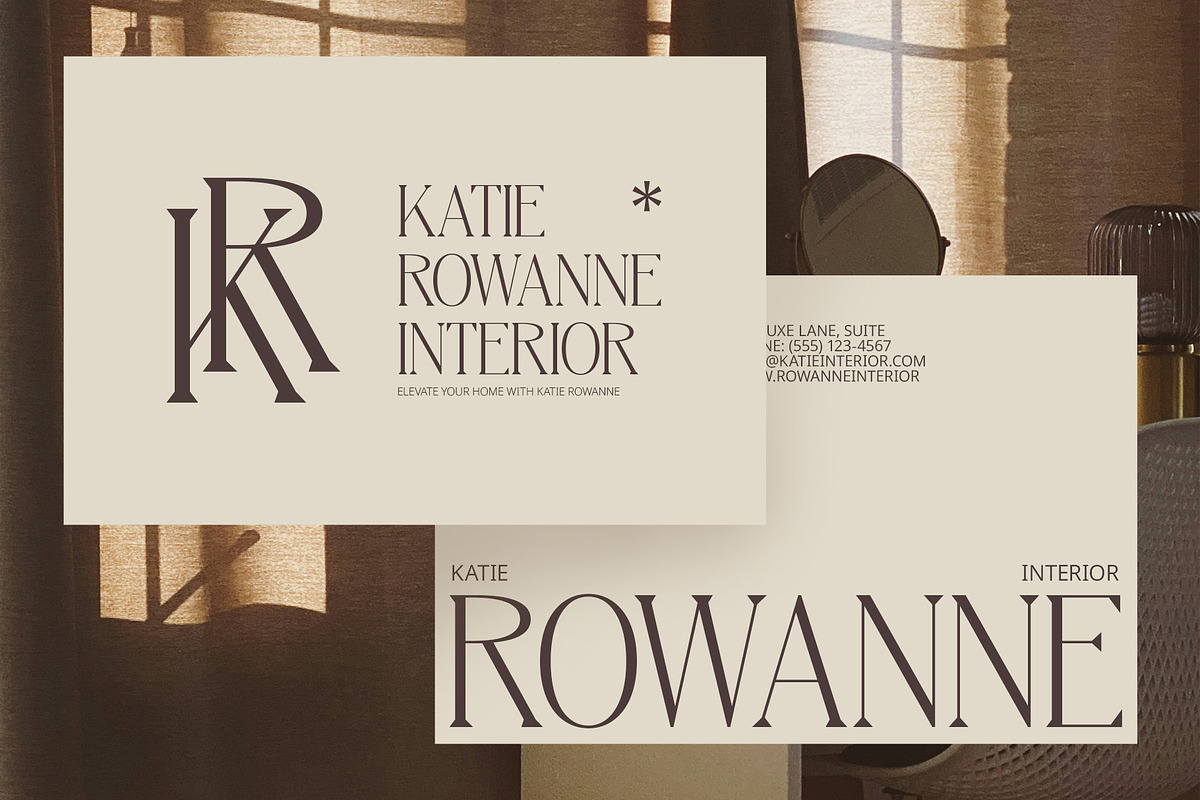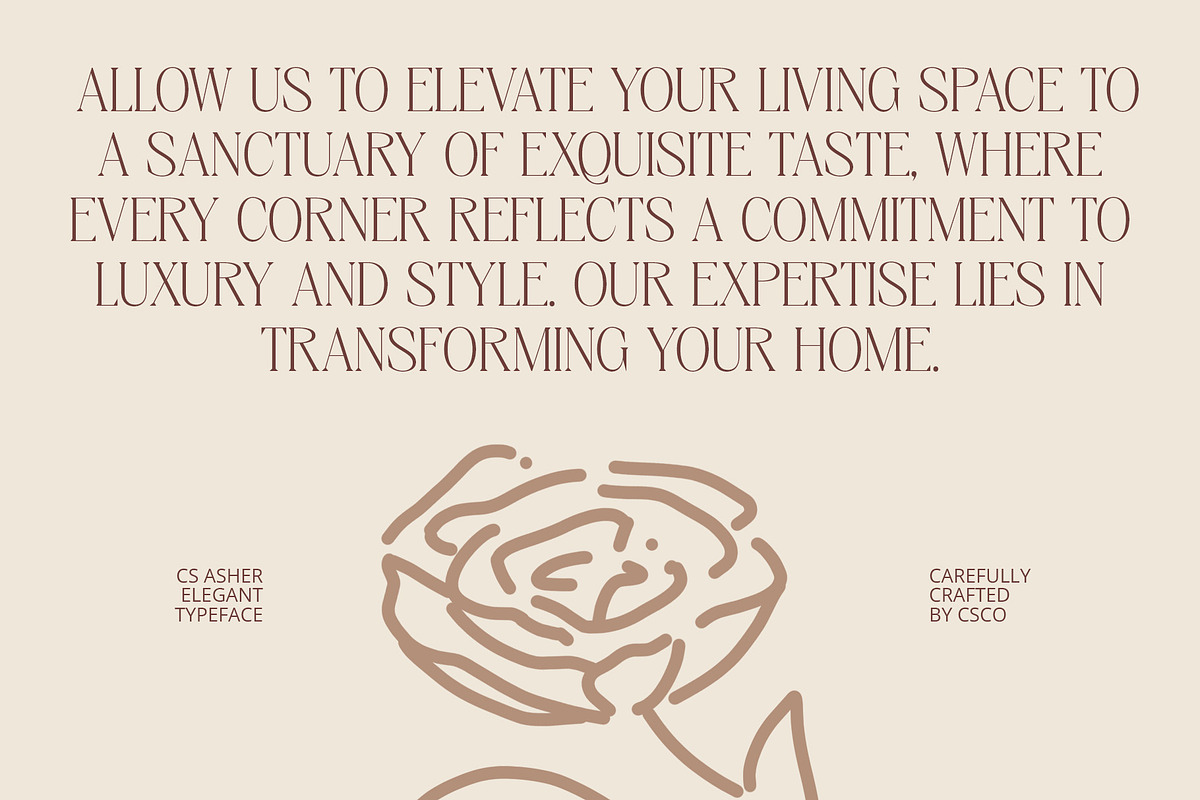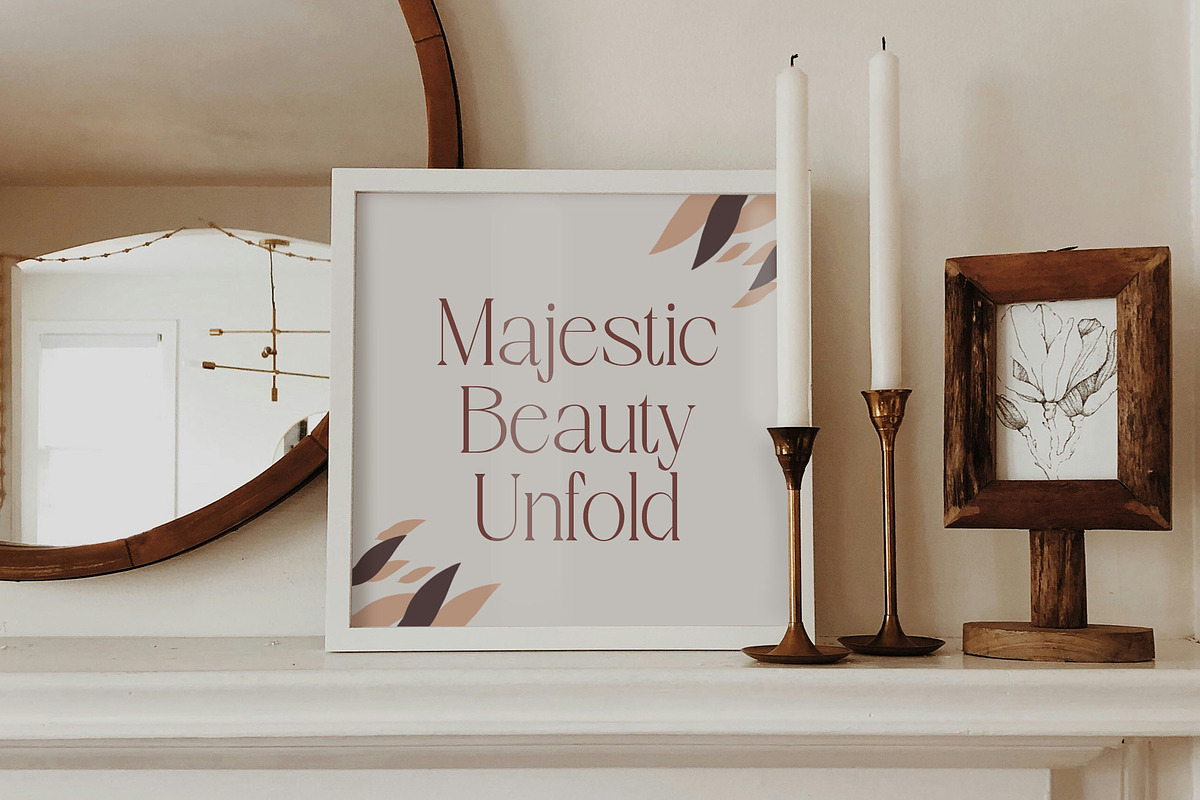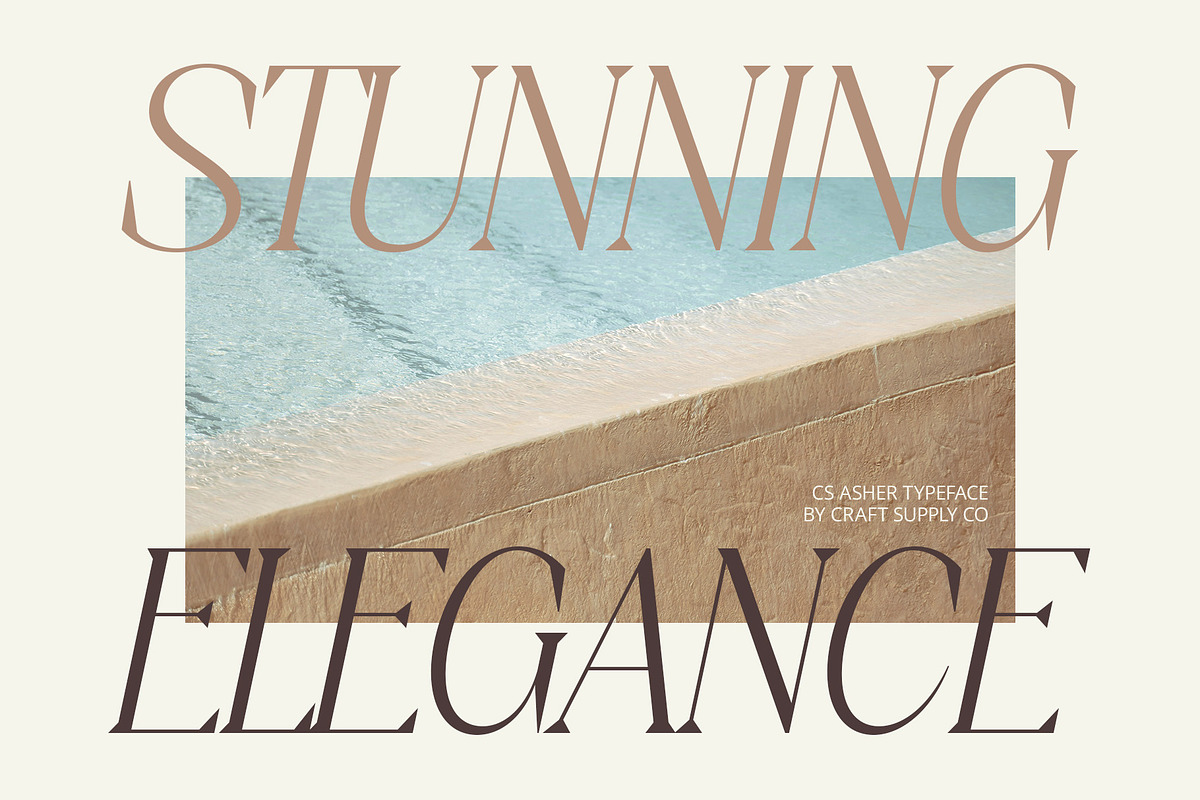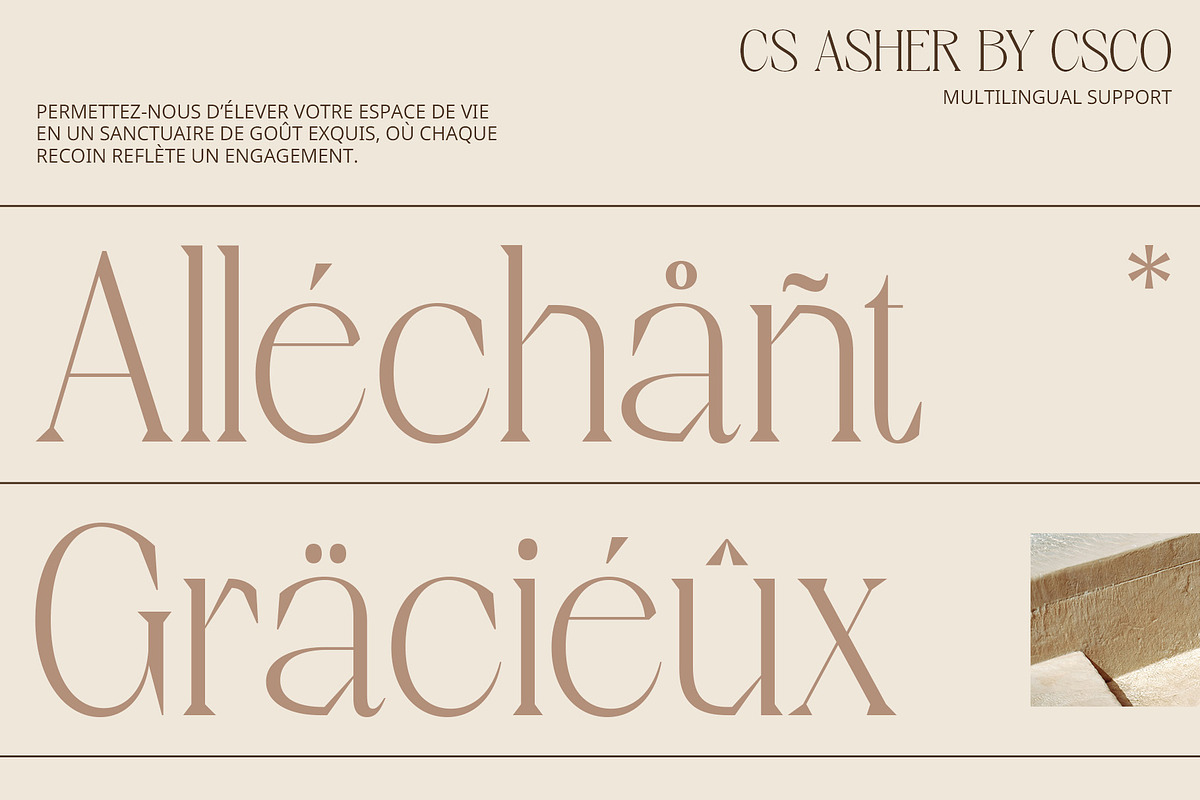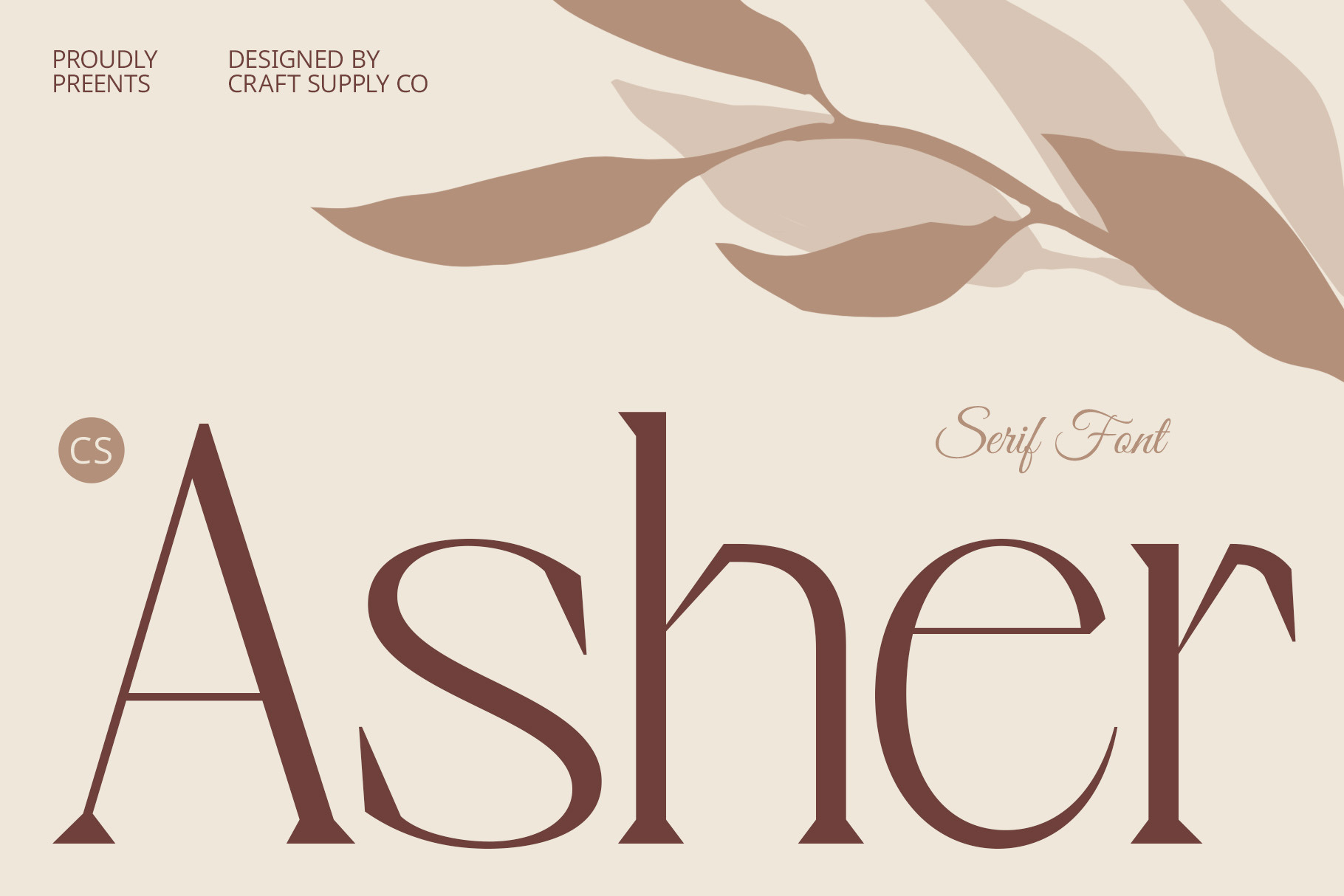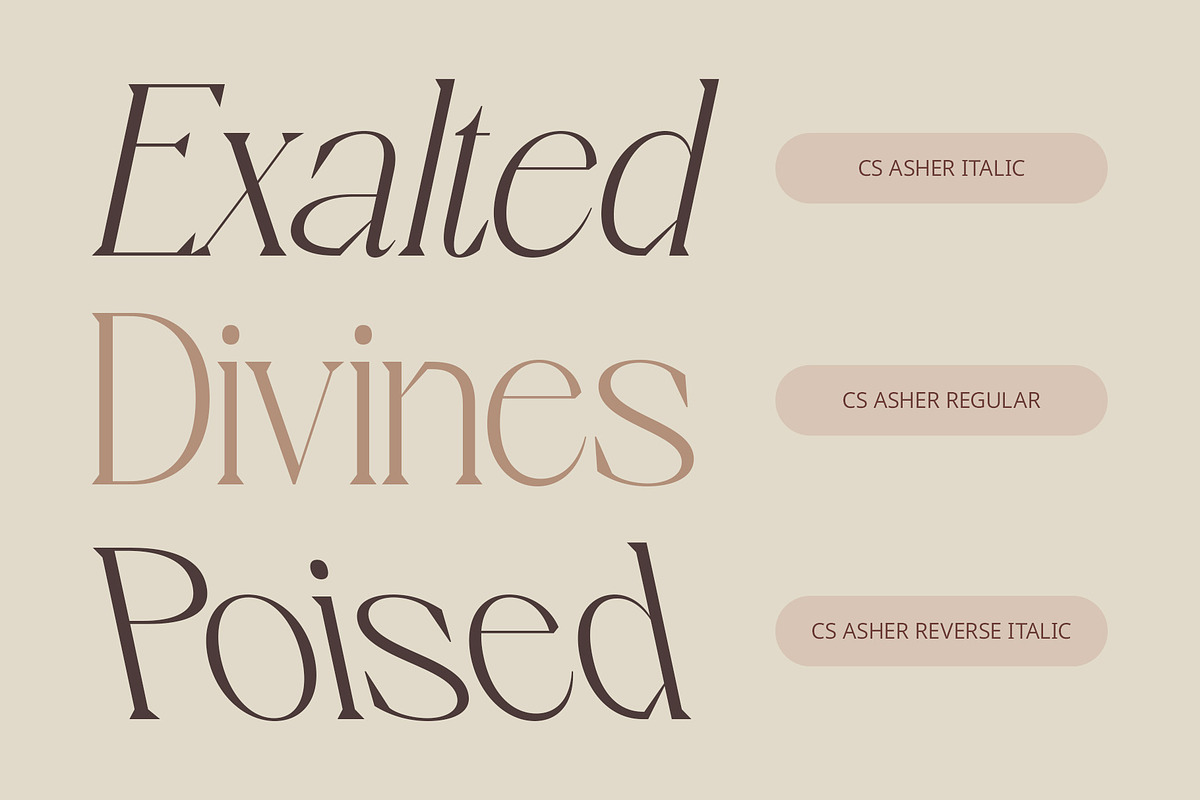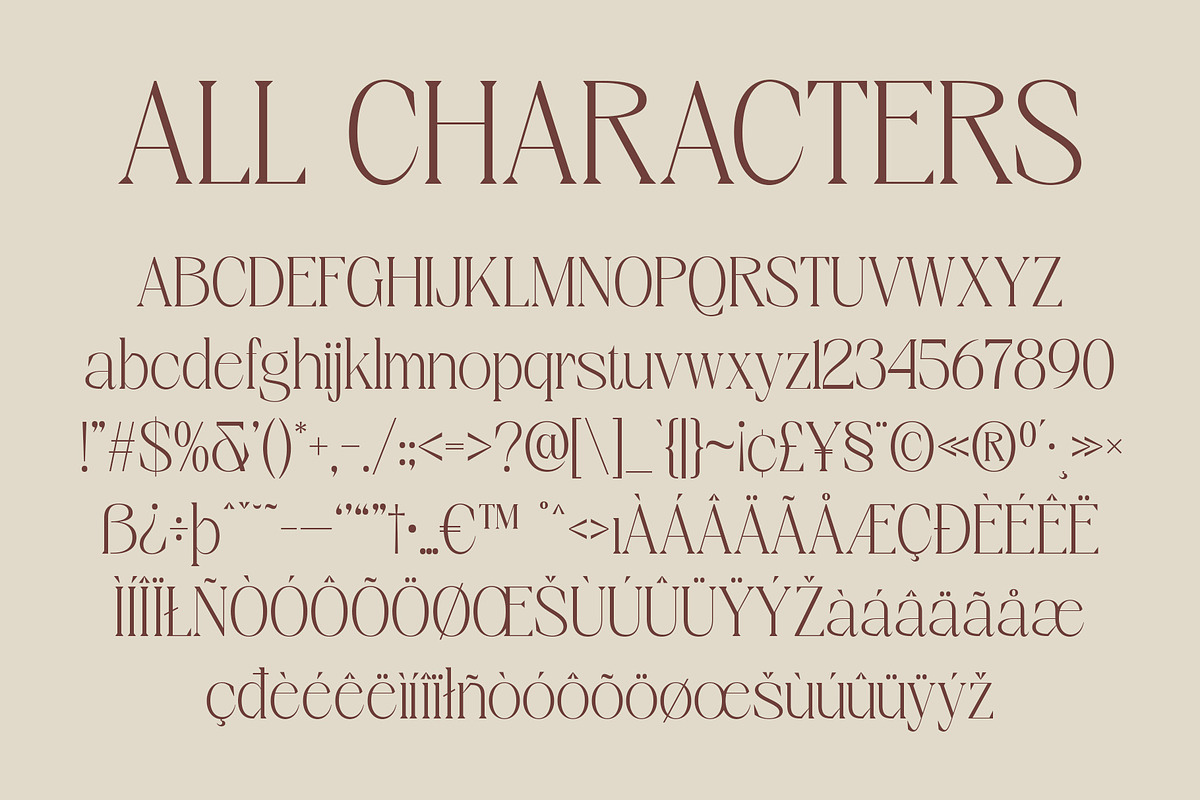
CS Asher – Elegant Font
CS Asher – Elegant Font: Contemporary Sophistication with Refined Grace
Modern Serif Elegance CS Asher is a modern serif font with sleek, minimalist letterforms that convey a sense of elegance and sophistication. Its refined, narrow design not only enhances readability but also infuses your projects with contemporary charm.
Sleek and Minimalist Design Featuring clean, slender letterforms, CS Asher offers a sophisticated aesthetic that’s perfect for upscale branding and high-end editorial layouts. Its minimalist style ensures that your text stands out with a refined, modern look.
Enhances Readability and Style The narrow, well-balanced design of CS Asher provides clear readability while maintaining an air of elegance. Ideal for applications that require both functionality and style, this font enhances the visual appeal of any sophisticated project.
Perfect for Upscale Branding and Editorials Whether you’re working on luxurious brand identities or refined editorial pieces, CS Asher delivers a contemporary elegance that’s sure to impress. Its combination of modern design and timeless sophistication makes it an ideal choice for high-end visual communications.
- CS Asher Regular
- CS Asher Italic
- CS Asher Reverse Italic